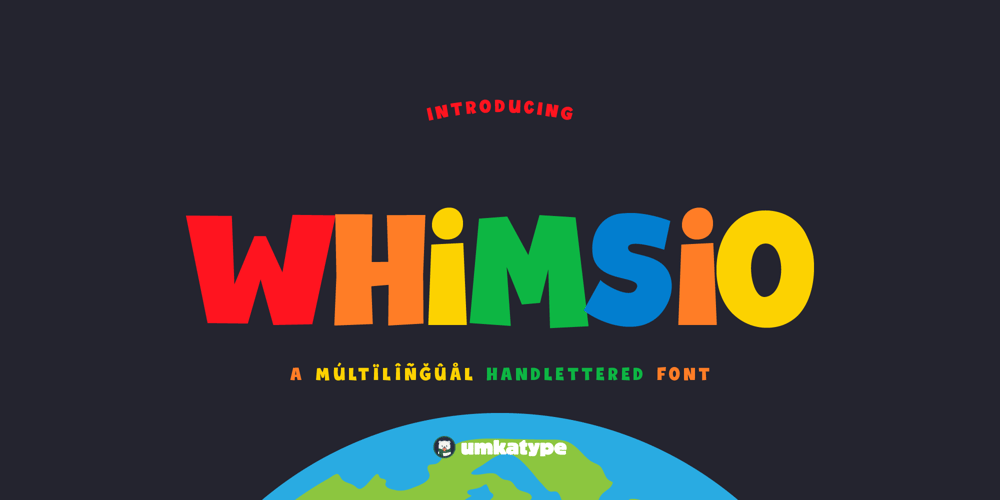
Whimsio Font Family was designed by Alper Çakıcı and published by Umka Type. Whimsio contains 1 styles and family package options. Introducing Whimsio, the font that speaks 93 languages and gives a million giggles! 🌍✨Whimsio is here to save the day with its playful, whimsical style and support for a whopping 93 languages, from Belarusian to Zulu! With its childish charm and versatility, Whimsio is perfect for adding a touch of fun to your projects. From whimsical posters to colorful websites, this font is like a box of crayons for your words. Plus, its friendly nature means your content will shine bright like a diamond in marketing world.Get ready to turn heads and tickle funny bones with Whimsio the font that’s fluent in fun! It supports 93 Languages: Belarusian, Russian, Afrikaans, Albanian, Asu, Basque, Bemba, Bena, Breton, Catalan, Chiga, Colognian, Cornish, Croatian, Czech, Danish, Dutch, Embu, English, Esperanto, Estonian, Faroese, Filipino, Finnish, French, Friulian, Galician, German, Gusii, Hungarian, Indonesian, Irish, Italian, Kabuverdianu, Kalenjin, Kamba, Kikuyu, Kinyarwanda, Latvian, Lithuanian, Lower Sorbian, Luo, Luxembourgish, Luyia, Machame, Makhuwa-Meetto, Makonde, Malagasy, Maltese, Manx, Meru, Morisyen, North Ndebele, Norwegian Bokmål, Norwegian Nynorsk, Nyankole, Oromo, Polish, Portuguese, Quechua, Romanian, Romansh, Rombo, Rundi, Rwa, Samburu, Sango, Sangu, Scottish Gaelic, Sena, Serbian, Shambala, Shona, Slovak, Soga, Somali, Spanish, Swahili, Swedish, Swiss German, Taita, Teso, Turkish, Upper Sorbian, Uzbek (Latin), Volapük, Vunjo, Walser, Welsh, Western Frisian, Zulu